I really like the papercut effect of the Monogram Daisy. However, in order to create an actual papercut monogram with my Brother ScanNCut, I would need to convert the font from OTF/TTF formats to a compatible format.
Converting fonts for the Brother ScanNCut
Simply using the text tool in Canvas Workspace doesn’t always work. With more complicated or intricate designs the cut lines can end up crooked and jumbled and would absolutely not work as a cut file.
Monogram Daisy Font in Canvas Workspace using text tool |
You can only type a single line of text into the converter and it all has to fit within the 30cm (12″) width of the mat, so you may have to either save the letters individually or in small groups depending on the size of the font. My preference is to save as many letters as possible in one go and then resize them in Canvas Workspace afterwards.
You can clearly see the difference between using the text tool directly in Canvas and using the Type Converter before importing the file into Canvas.
Monogram Daishy Font in Canvas Workspace using Type Converter |
Bear in mind that some font designs are best suited for larger scales due to the intricacy of the design or areas with narrow lines and small apertures. Also, some font designs might not translate well to a cut file, for example, if the style is sketchy.
How to convert a font to an SVG in Affinity Designer
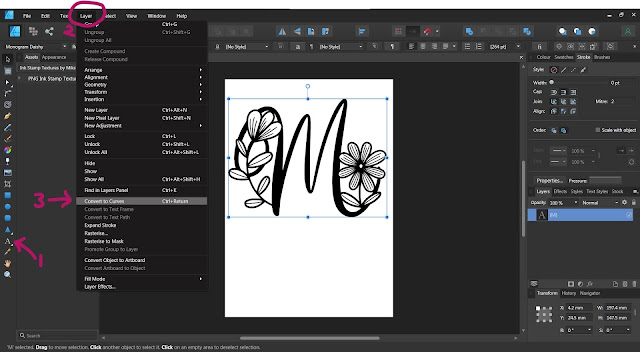
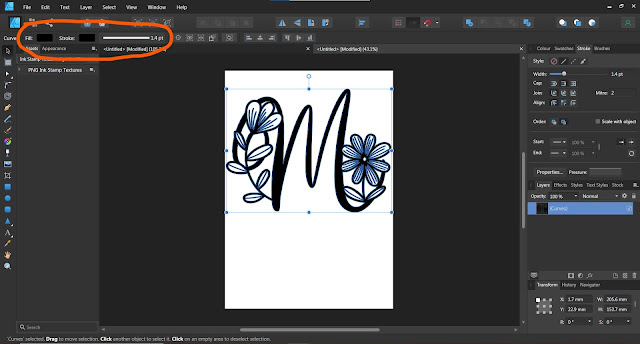
How to convert a font to an SVG in Photoshop